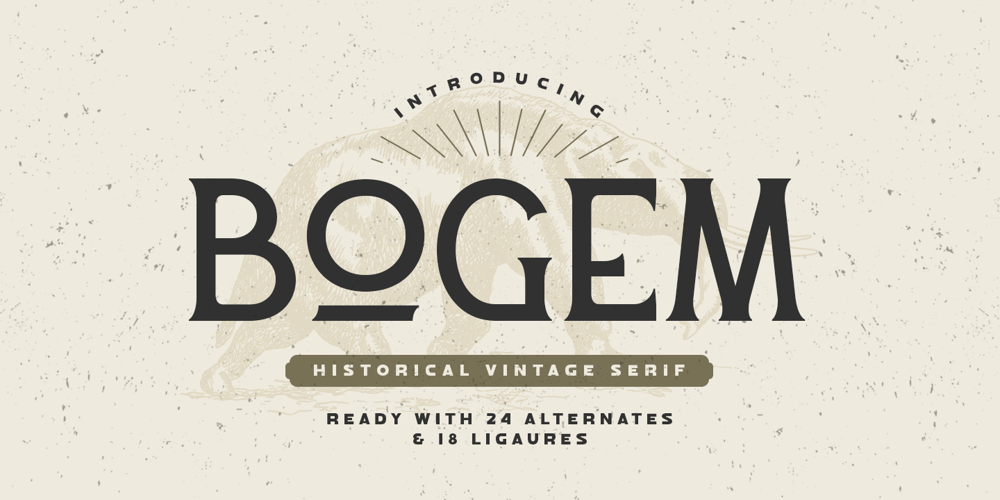
Bogem Style Font Family was designed by Zamroni Hamzah and published by Sensatype Studio. Bogem Style contains 1 styles and family package options. Bogem is a Historical Vintage Serif. A New Vintage font that we created special for Unique branding needs, with extra ligature in unique style that ready to add value of your brand. It’s so nice to leverage designer or product owner that need solutions to make their design look more unique and vintage. Lowercase and Uppercase characters Numbers and Punctuations Preview as a inspirations that you can do with Bogem font Available for PC and Mac Wish you enjoy our font.